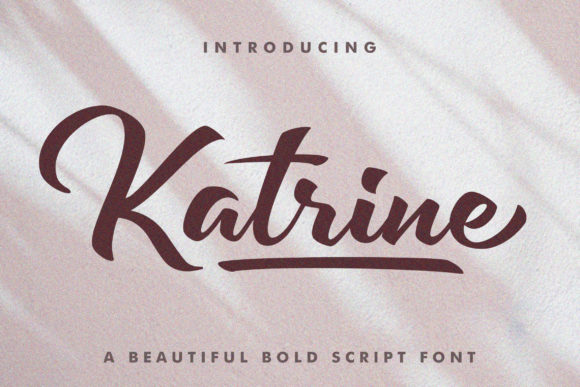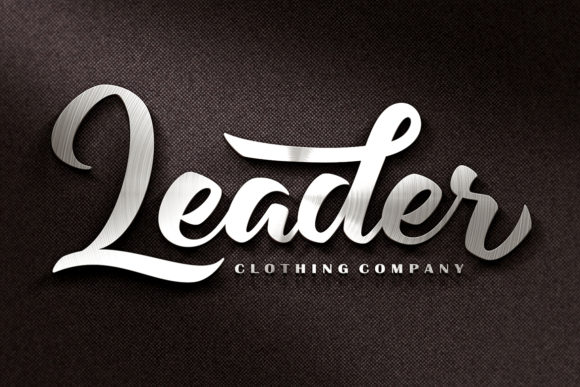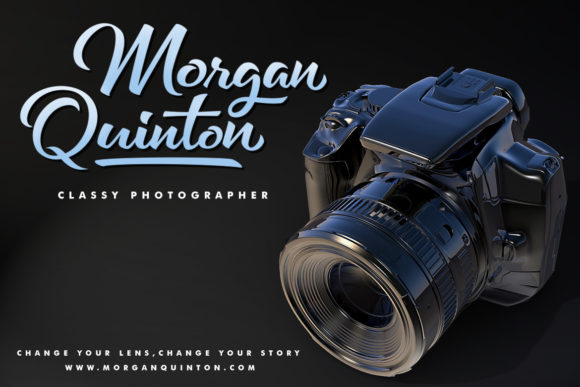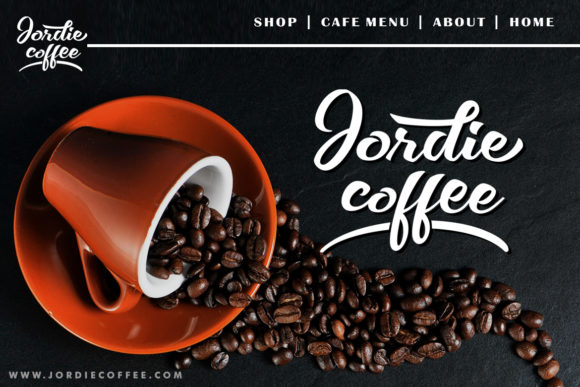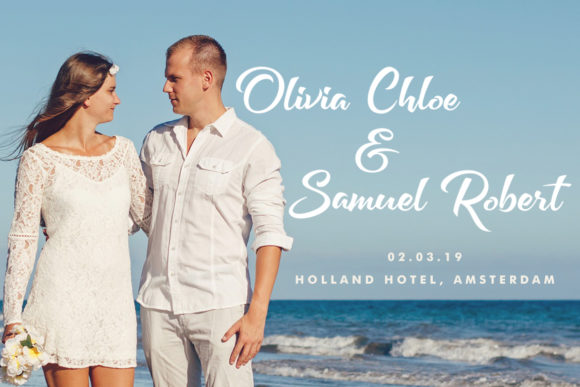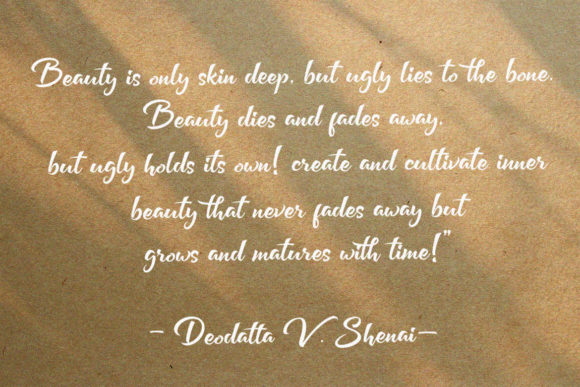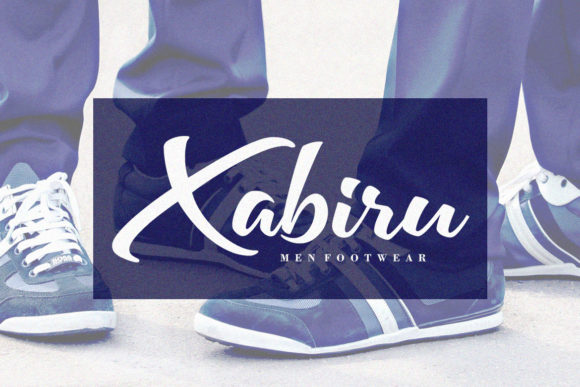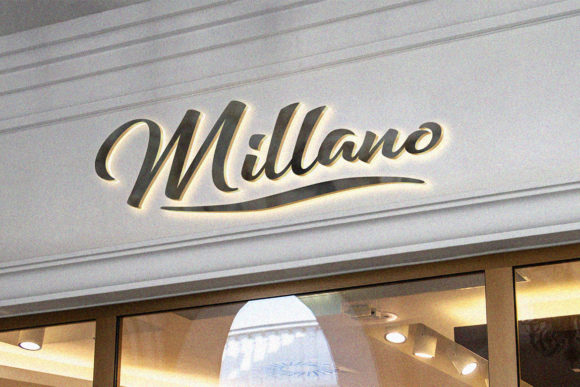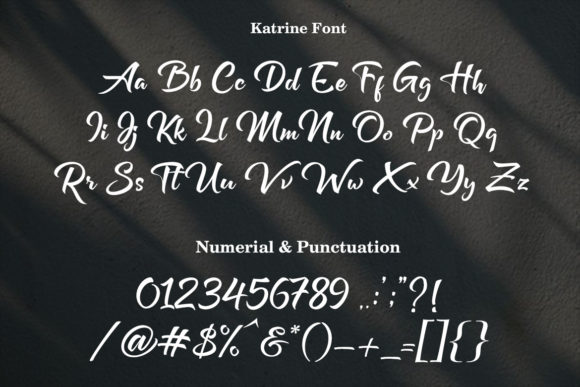
HomeScript FontsKatrine Font Script Fonts Katrine Font FacebookXPinterestWhatsApp Katrine Font Poster 2 Katrine Font Poster 3 Katrine Font Poster 4 Katrine Font Poster 5 Katrine Font Poster 6 Katrine Font Poster 7 Katrine Font Poster 8 Katrine Font Poster 9 About Katrine Font Katrine is a bold and unique handwritten font with a lovely twist. Fall in love with its timeless elegance. DOWNLOAD NOW People also explored Makasih Font Younks Font Greyfish Font Amory Font Cosley Font Acoustic Font Green Healthy Font Celty Font Masculine Ultrabold Font 260 0 TagsKatrine Font Previous articleStokyt FontNext articleLong Knive Font LEAVE A REPLY Cancel reply Comment: Please enter your comment! Name:* Please enter your name here Email:* You have entered an incorrect email address! Please enter your email address here Website: Save my name, email, and website in this browser for the next time I comment. Personal Use Free Hysteria Santa Personal Use Free Read more about this font Genres Personal Use Free Read more about this font Good Luck Personal Use Free Read more about this font Love Story Personal Use Free Read more about this font BLOG Free vs Paid Fonts: Why Investing in Premium Fonts Is Worth It Free vs Paid Fonts: Why Premium Fonts Are Worth It in 2025 The debate of free vs paid fonts continues in the design world. While... How to Install and Use Fonts on Windows, macOS, and Web Projects Exploring Font Trends Top 10 Handwritten Fonts That Elevate Your Designs